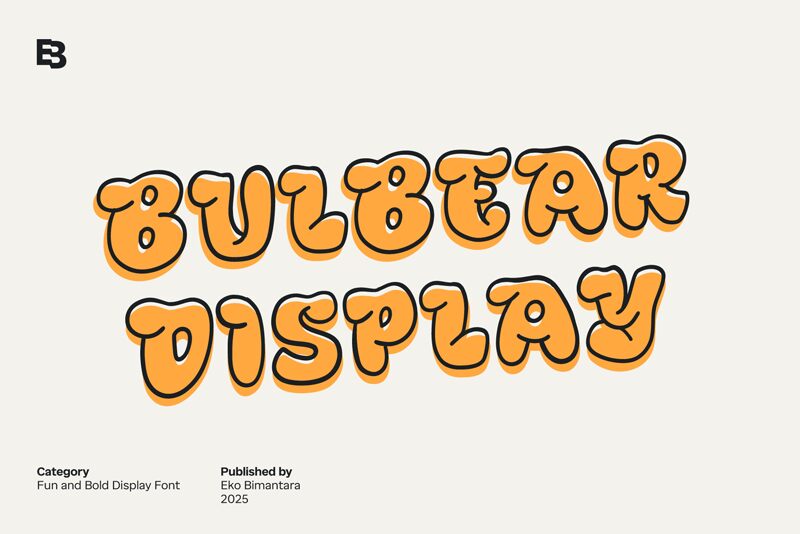
Bulbear font by Eko Bimantara is a bold cartoon display typeface with a chunky and whimsical appearance. Soft contours and retro-inspired aesthetics give this youthful font its playful charm. With three available styles: regular, italic, and outline, this typography can be used on its own or combined all of the styles together for a more dynamic design.
Bulbear